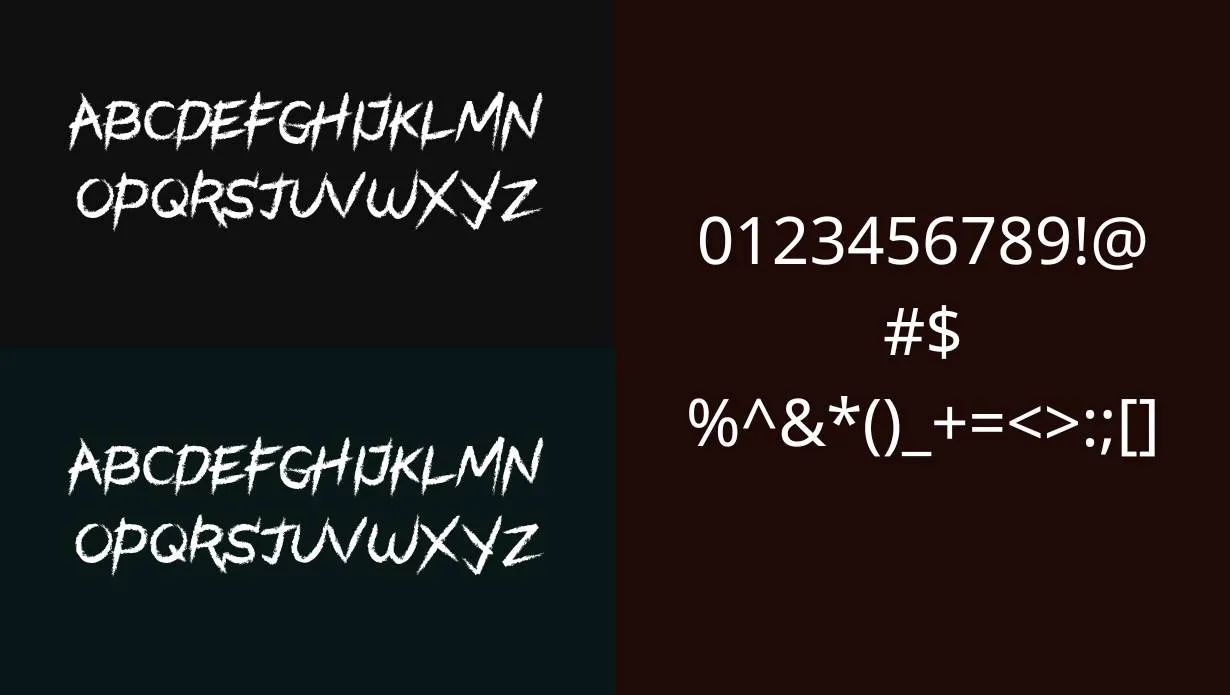
Black Halloween Font is a spooky and eerie typeface that embodies the spirit of Halloween. This font is a fancy font with spooky horror characters. Its sinister, jagged letters create a chilling atmosphere. You can download this font in OTF and TTF file formats.
Perfect for Halloween-themed party invitations, haunted house flyers, and any design that aims to send shivers down your spine. The designer of Black Halloween Font is often unknown, as it’s widely available as a free font on various platforms. American Horror Story Font is also spooky font like this one. So, you can call it a similar font to it.
Black Halloween Font Family